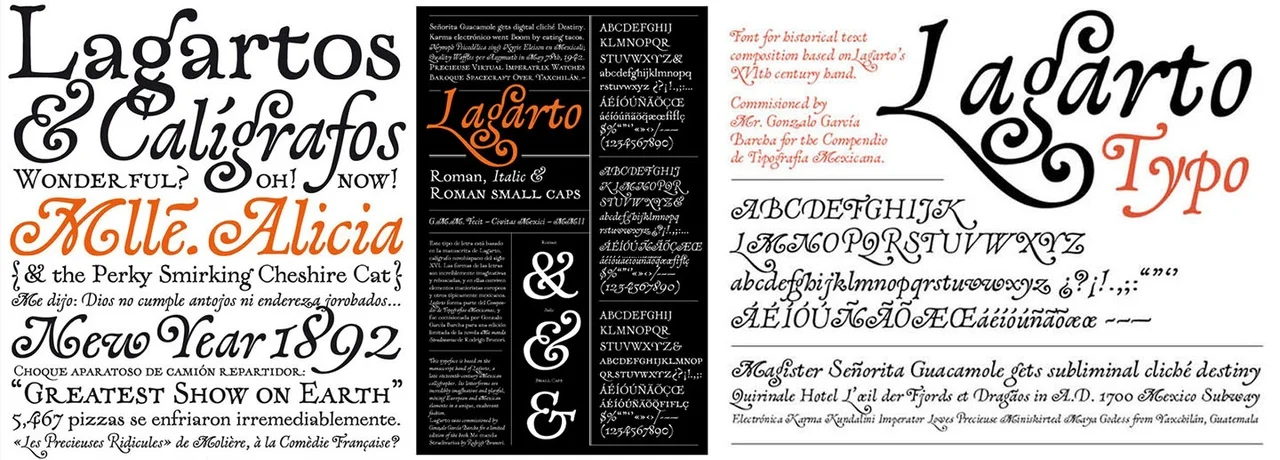
Lagarto Font
Lagarto Font is perfect for exotic branding projects, tropical resort marketing, wildlife conservation materials, adventure travel designs, nature-inspired product packaging, zoo and aquarium branding, outdoor adventure logos, eco-tourism campaigns, animal-themed children's products, reptile shop signage, jungle-themed designs, and any design project requiring a wild and distinctive character.
What makes Lagarto Font exciting is its unique reptilian character that brings untamed energy and exotic appeal to any design. The font's distinctive letterforms capture the essence of wild nature and primal beauty, making it ideal for brands emphasizing adventure, authenticity, and connection to natural world. Its bold personality stands out in crowded markets while communicating strength and adaptability, helping designers create memorable content that resonates with audiences seeking authentic and adventurous experiences.
The Lagarto Font family typically includes uppercase and lowercase characters, numerals, punctuation marks, and nature-inspired decorative elements that enhance its wild aesthetic.